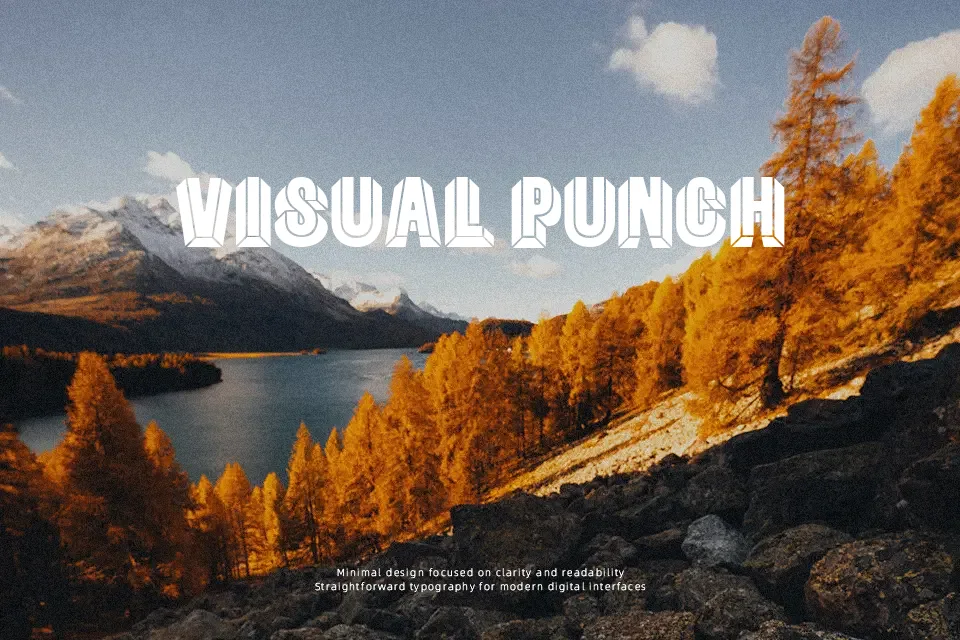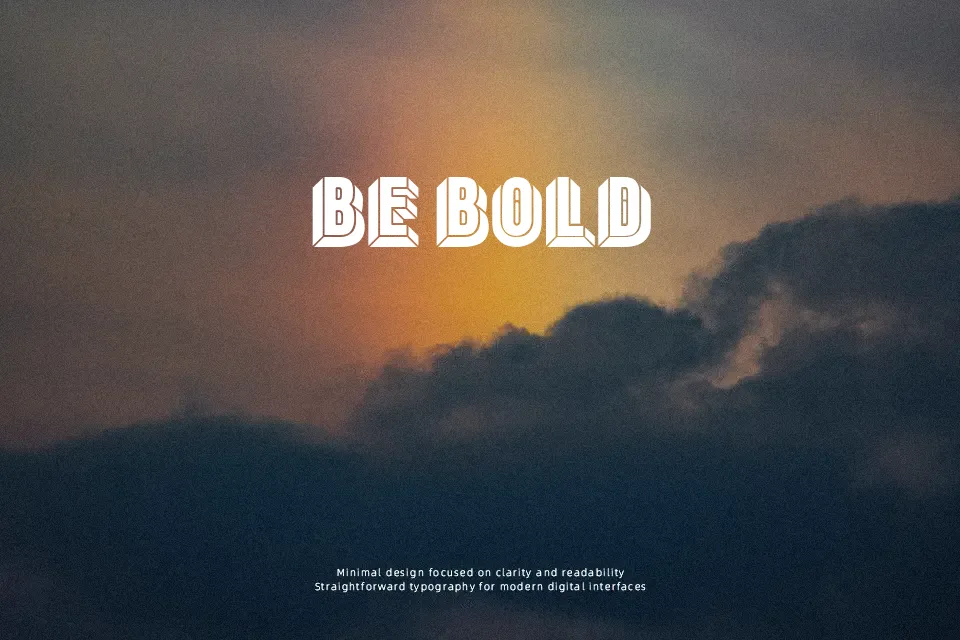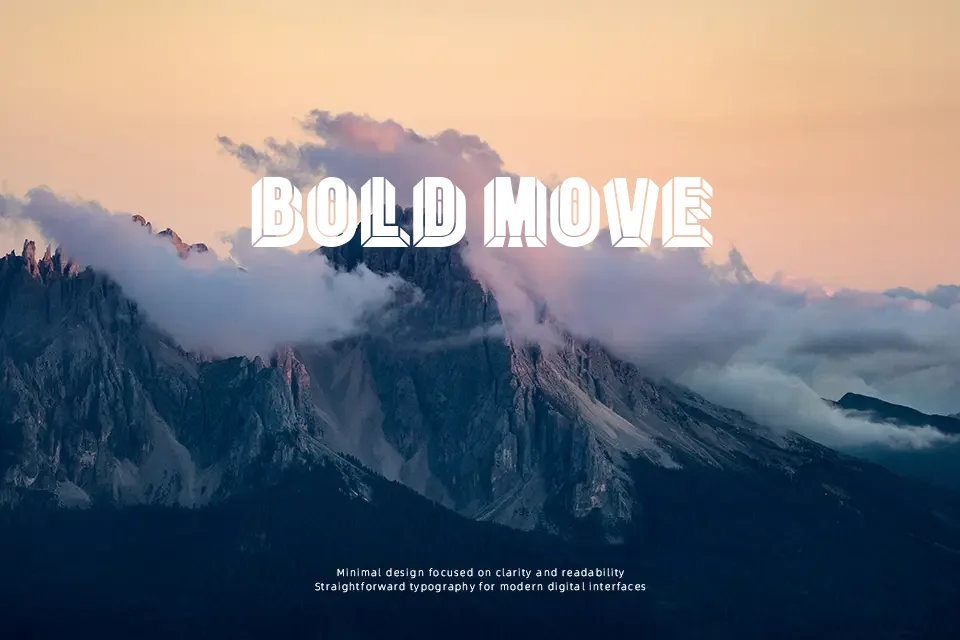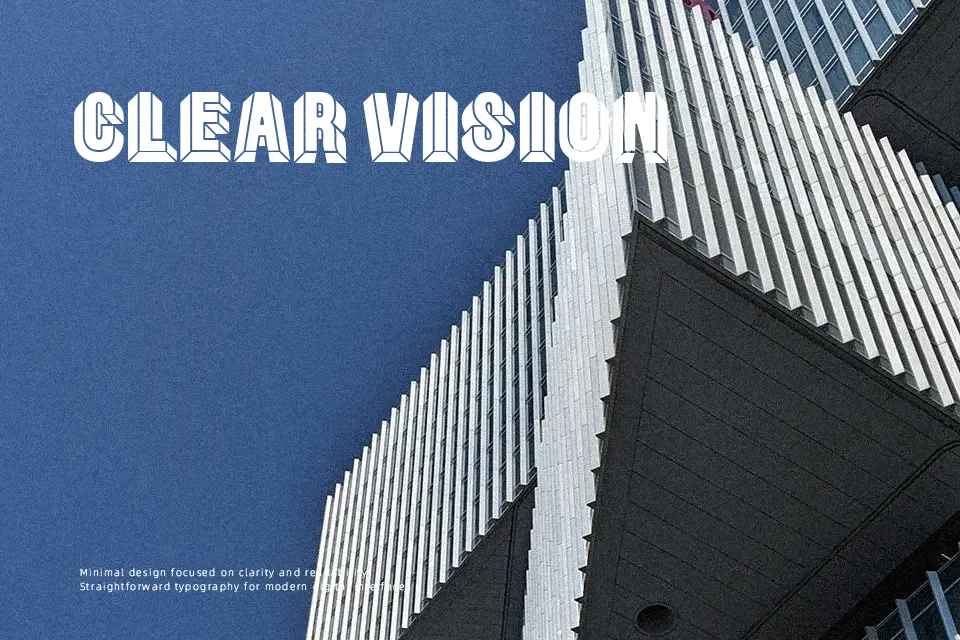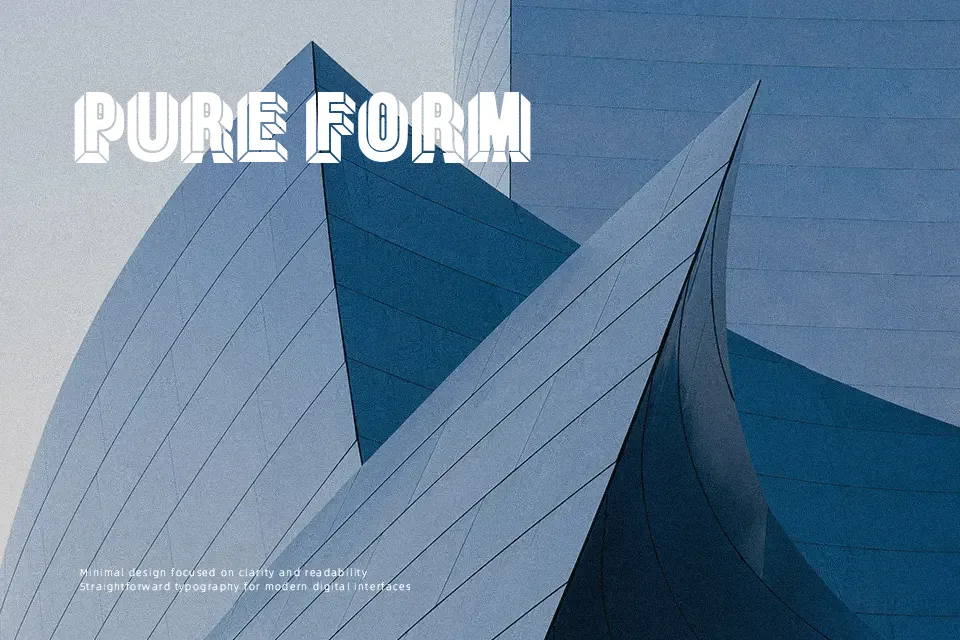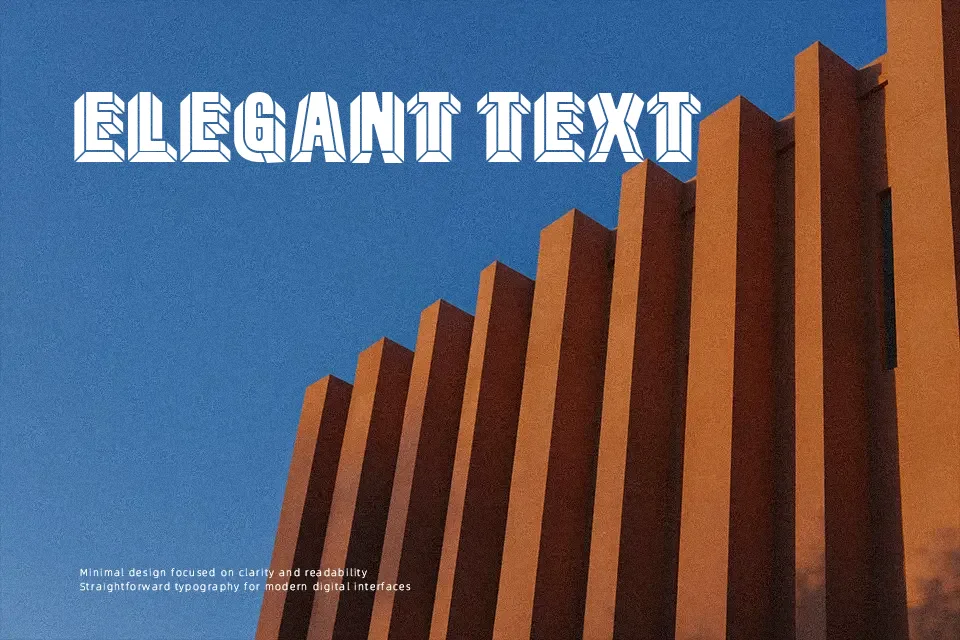
Spit Font
Spit Font exhibits heavy, extruded stroke architecture with crisp outer edges and geometric character proportions. The uppercase glyphs maintain consistent visual weight, while the tight tracking creates a dense typographic rhythm across horizontal lines. Because the inner counters remain compact, the letterforms preserve their sharp clarity in short titles, gaming graphics, and merchandise prints. However, the prominent dimensional shadows reduce legibility in continuous reading environments, making the typeface unsuited for standard paragraphs or small user interface elements. The design delivers reliable graphic punch when rendered at large display scale, though careful leading is necessary to prevent overlapping vertical ascenders.
music festival posters, video game titles, streetwear apparel graphics, packaging headlines
long body text paragraphs, mobile interface labels, dense editorial spreads, spreadsheet data
Perfect for 3d, gaming, and headline, with a bold and decorative style.